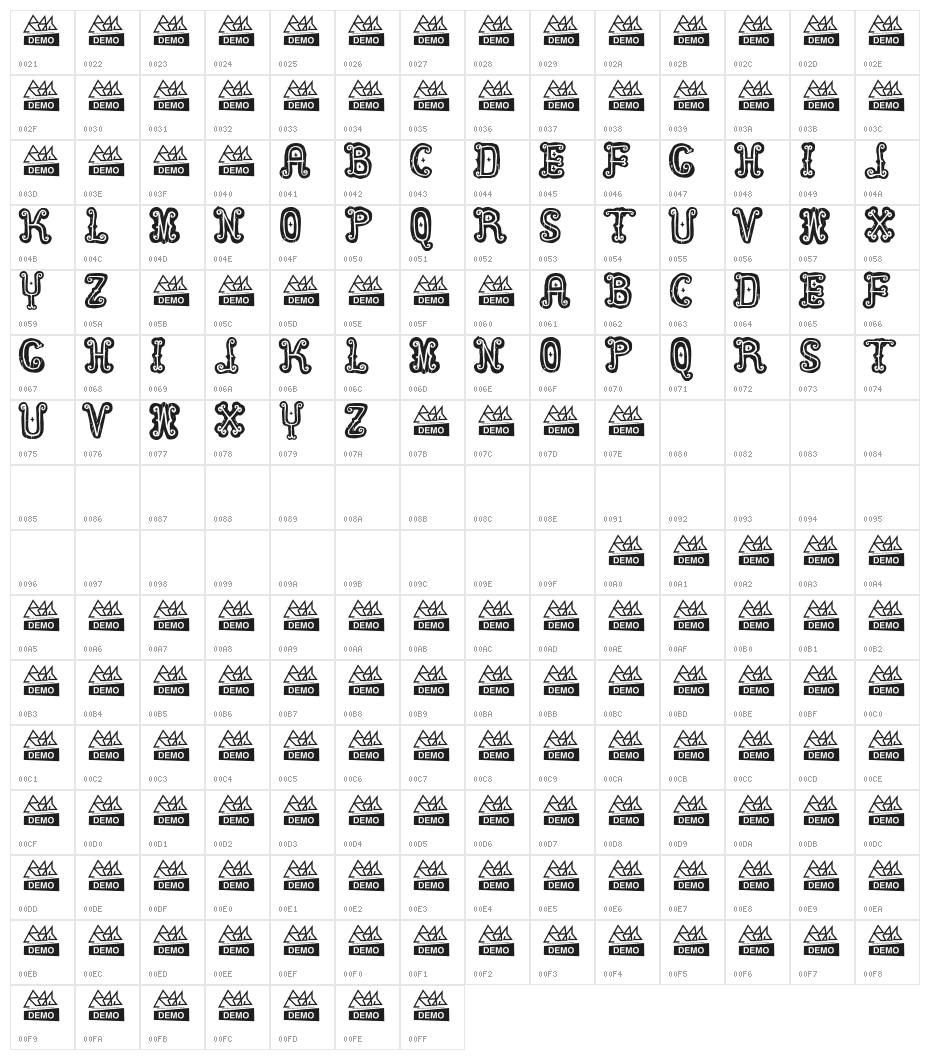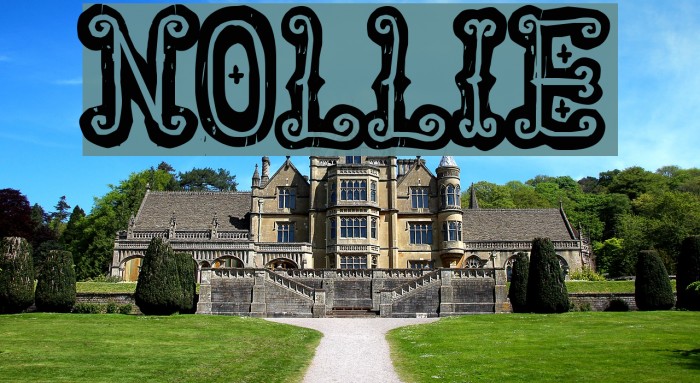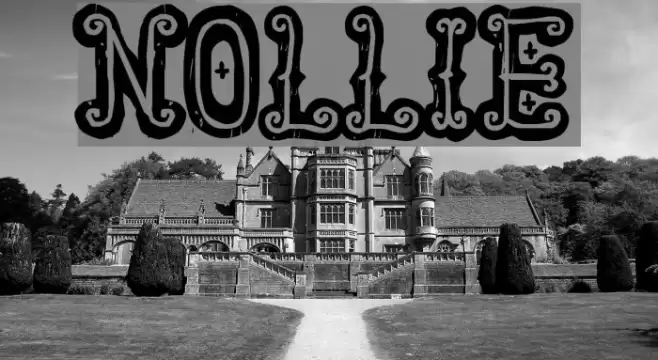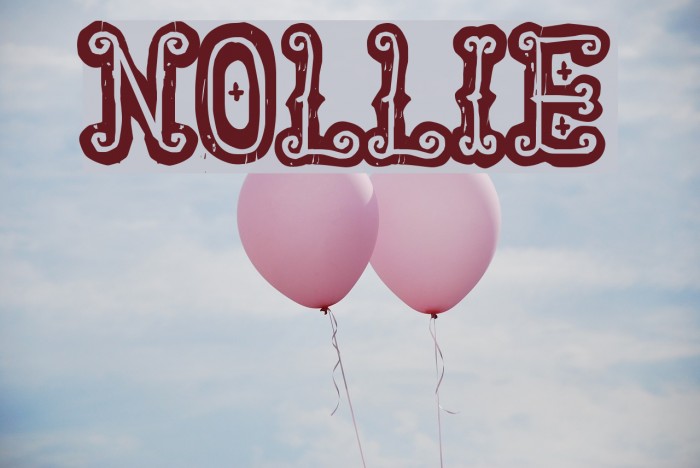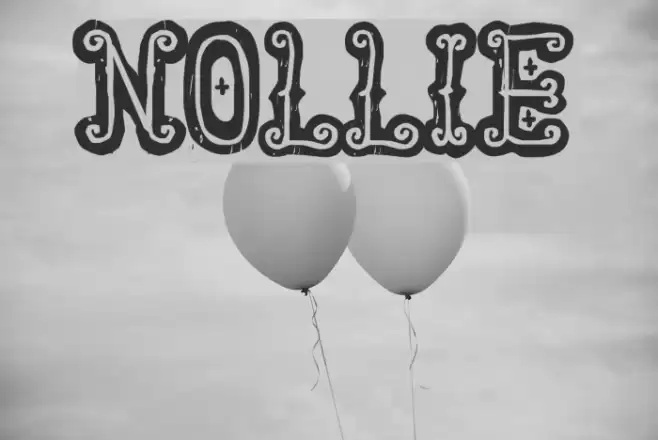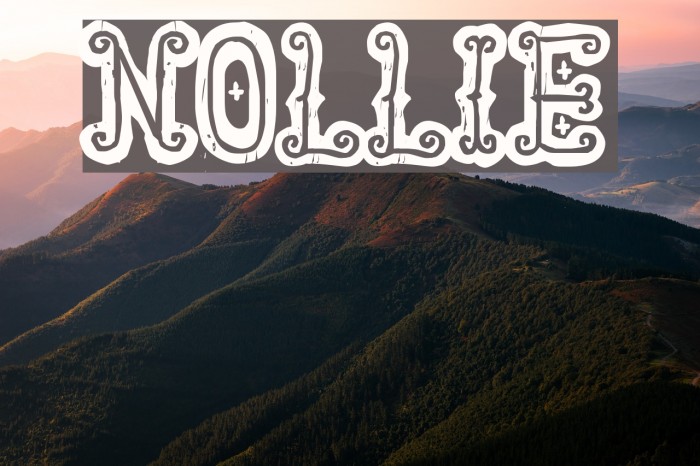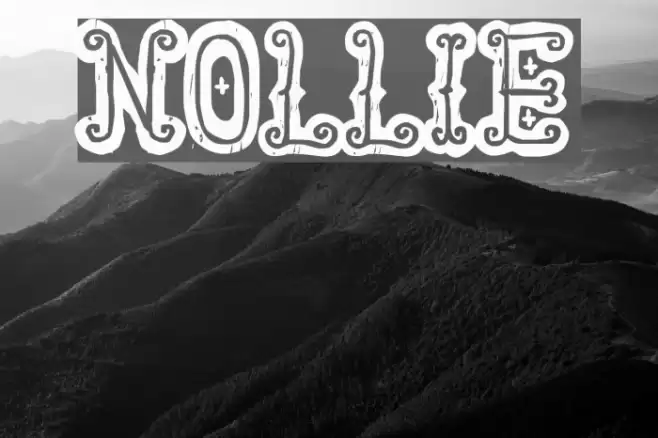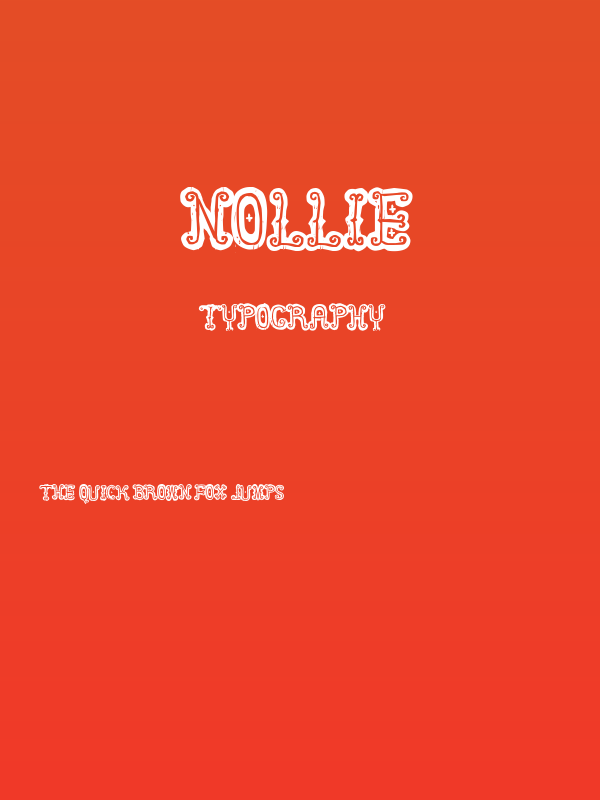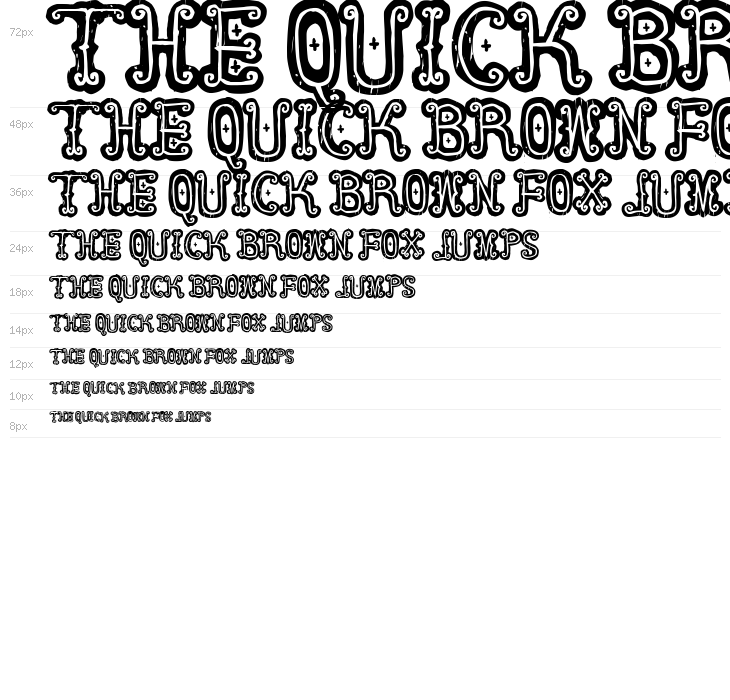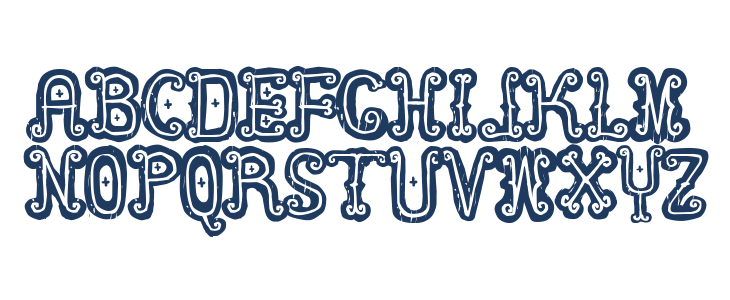
Nollie Font
Nollie Description
This font features a bold, decorative style with intricate detailing and a playful, whimsical appearance. Each character is outlined with a thick border and includes unique embellishments, such as dots and curls, giving it a lively and eye-catching look. The font's design is reminiscent of vintage circus or carnival themes, making it ideal for projects that require a fun and engaging aesthetic. The uppercase letters are particularly striking, with their bold presence and intricate patterns, while the lowercase letters maintain the same level of detail and charm.
| Proposed Projects | Ideal for posters, event invitations, children's books, and branding that requires a playful and engaging look. |